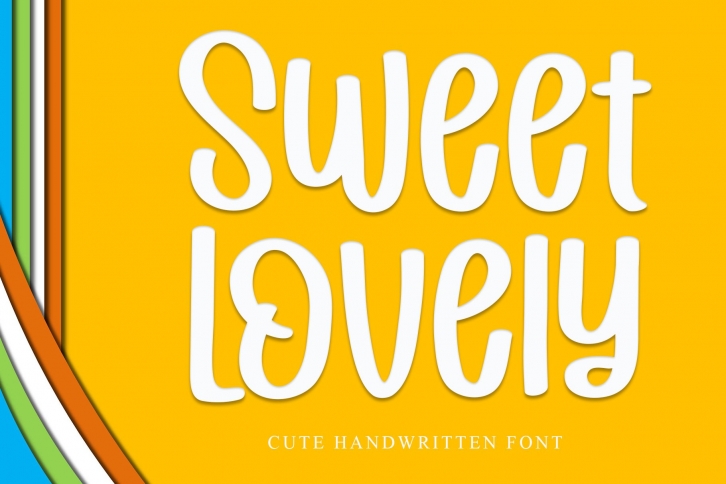
Sweet Lovely is a gorgeous font that was realeased on February 22, 2022. The font can be used in many style contexts and design environments. Perfect for invitations, magazines, websites, logos, and more! It was designed by Giart Studios and the file size is 14.53 MB. Thanks for checking out this font!